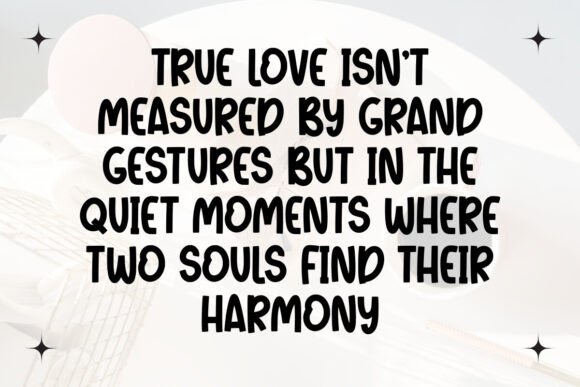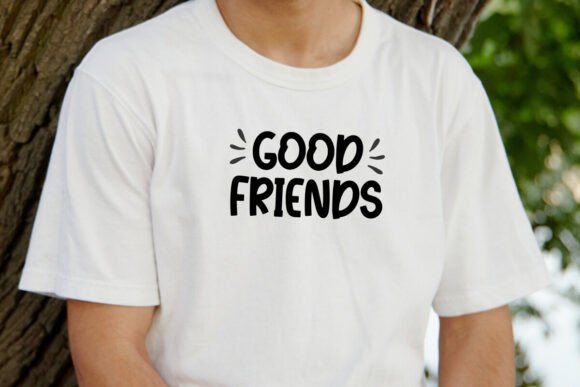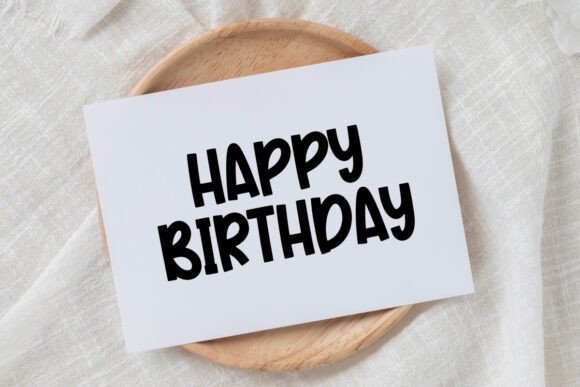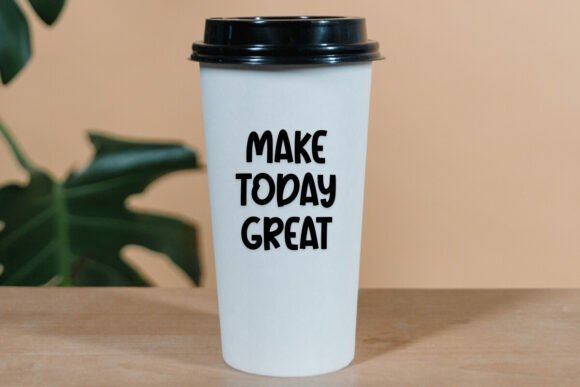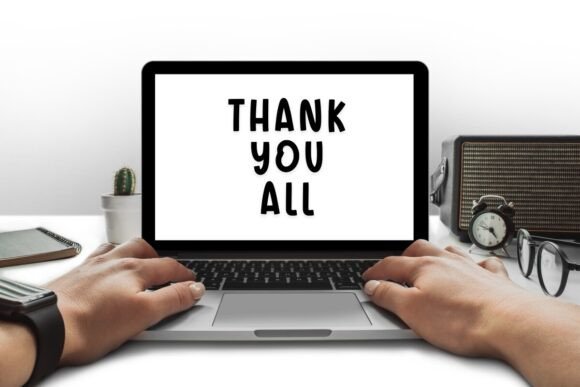
Unlock the Power of Black History Font in Your Designs
Have you ever been browsing through design inspiration boards and stumbled upon a font that just makes your heart skip a beat? For many designers, that moment is what drives creativity and pushes them to try new things. For me, that moment came when I discovered Black History Font – a cute, bold display font that adds a touch of elegance to any design.
Black History Font is more than just a pretty face; it’s a tool that helps bring designs to life. With its unique and beautiful style, it’s the perfect addition to any project that needs a little extra flair. Whether you’re working on a branding project or a social media campaign, Black History Font is sure to inspire and captivate your audience.
Key Features of Black History Font
- Font Family: Black History Font is a unique, hand-drawn font designed to celebrate African American history and culture.
- Character Count: The font contains over 200 characters, including uppercase and lowercase letters, numbers, and punctuation marks.
- Unique Characteristics: The font features a distinctive, hand-drawn style with bold lines and vibrant colors, making it perfect for adding a touch of personality to designs related to African American history and culture.
Designer Review: Black History Font
Overall, I have mixed feelings about the Black History Font. On one hand, I appreciate the creator’s intention to honor and celebrate African American history and culture.
- ✨ Unique design inspiration: The font draws inspiration from African American culture and history, making it a great choice for projects related to this theme.
- ✨ Beautiful letterforms: The font’s letterforms are well-designed and visually appealing, making it a great choice for display typography.
- ⚠️ Limited character set: The font only includes a basic character set, which may not be suitable for extended text use.
- ⚠️ Limited language support: The font only supports English, which may limit its use for multilingual projects.
- ⚠️ Limited font weights: The font only includes a few font weights, which may not be suitable for projects that require a range of weights.
Overall, I think the Black History Font is a great choice for display typography and projects related to African American culture and history. However, its limitations make it less suitable for extended text use or multilingual projects.
Use the Black History Font to add a touch of elegance and sophistication to your designs. Experiment with different font sizes and styles to create a unique look. Consider pairing the font with other bold and modern fonts for a striking visual effect.
The Black History Font is perfect for:
- Creating a bold and eye-catching title.
- Adding a touch of elegance to a formal design.
- Highlighting important information or quotes.
Alternatives to Black History Font
Playfair Display is a luxurious, high-end font that adds a touch of elegance to any design. It features intricate details and ornate flourishes, making it perfect for titles, headings, and special occasions. Use it when you want to convey sophistication and refinement. Compared to Black History Font, Playfair Display is more ornate and less bold, making it suitable for different design contexts.
2. Didot
Didot is a classic, high-end serif font that exudes luxury and sophistication. It features a elegant, refined feel that works well for titles, headings, and body text. Use it when you want to create a sense of history and tradition. Compared to Black History Font, Didot is more refined and less bold, making it suitable for formal and professional designs.
3. Garamond
Garamond is a timeless, elegant serif font that works well for both body text and titles. It features a classic, refined feel that conveys a sense of sophistication and culture. Use it when you want to create a sense of tradition and heritage. Compared to Black History Font, Garamond is more refined and less bold, making it suitable for formal and professional designs.